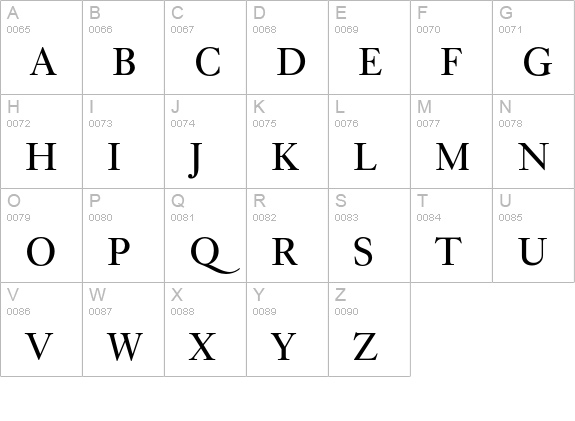
NikisEF-Light Font Details
NikisEF-Light is a refined, elegant variant in the NikisEF typeface family \xE2\x80\x94 well suited to elegant body text, refined sub-headings, and luxury branding.
NikisEF-Light is a stylish and modern font that exudes elegance and sophistication. With its sleek lines and clean design, this typeface is perfect for adding a touch of class to any project. The light weight of the font gives it a delicate and airy feel, making it versatile for a wide range of design applications. One of the best things about NikisEF-Light is that it is completely free to download. You can easily access this beautiful font at FontsMarket.com, where it is available for instant download. Whether you're working on a personal project or a professional design, NikisEF-Light is a fantastic choice that will elevate your work to the next level. Add a touch of refinement to your designs with this stunning font today!